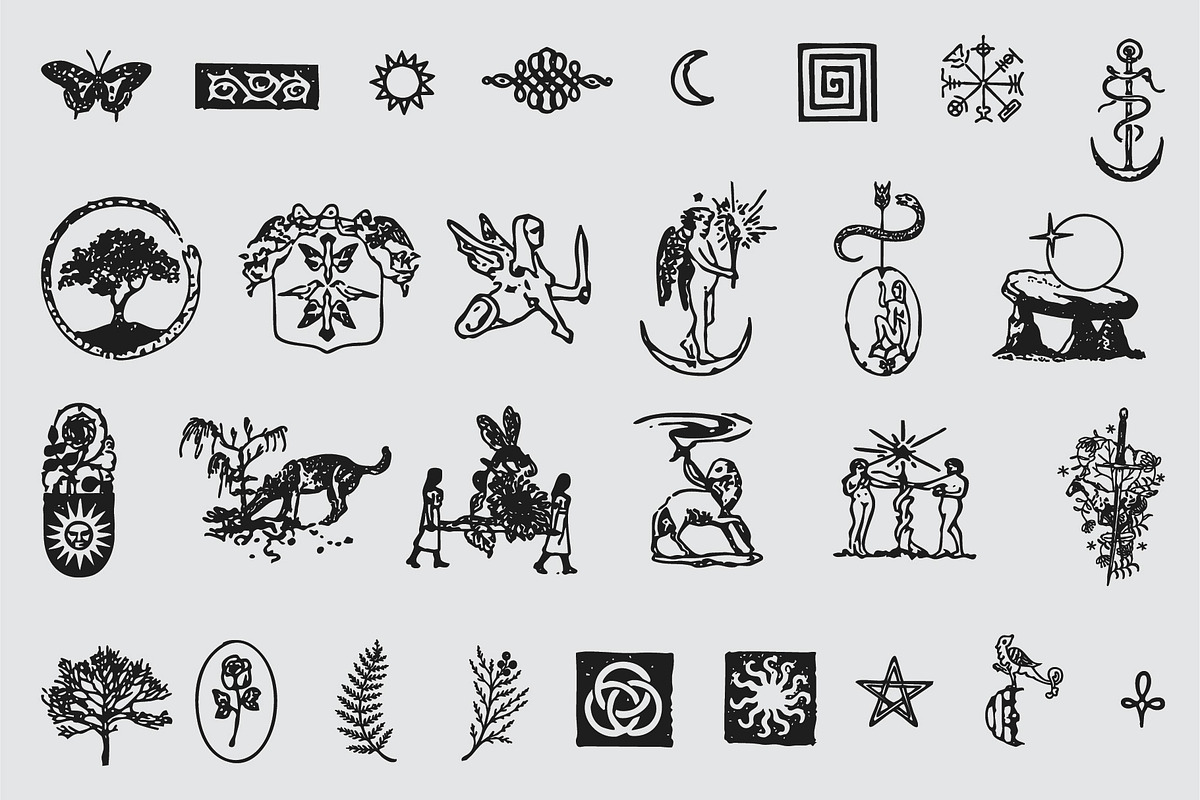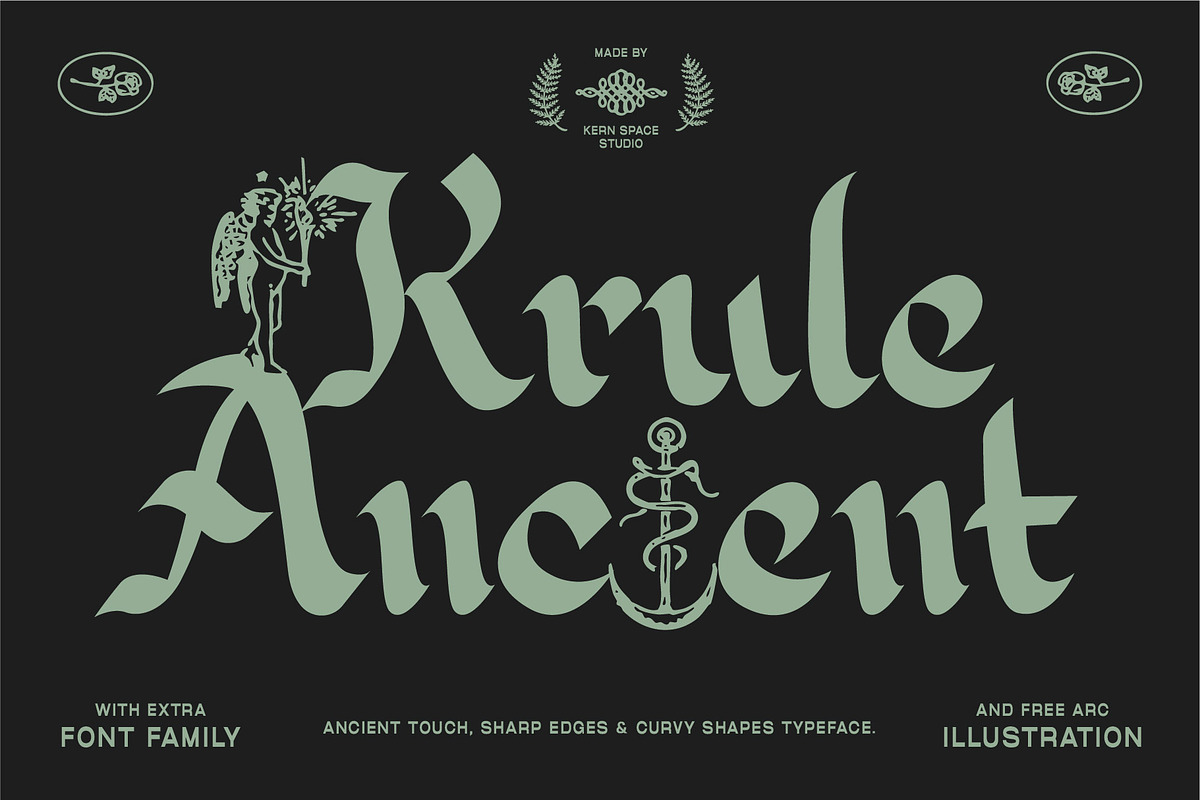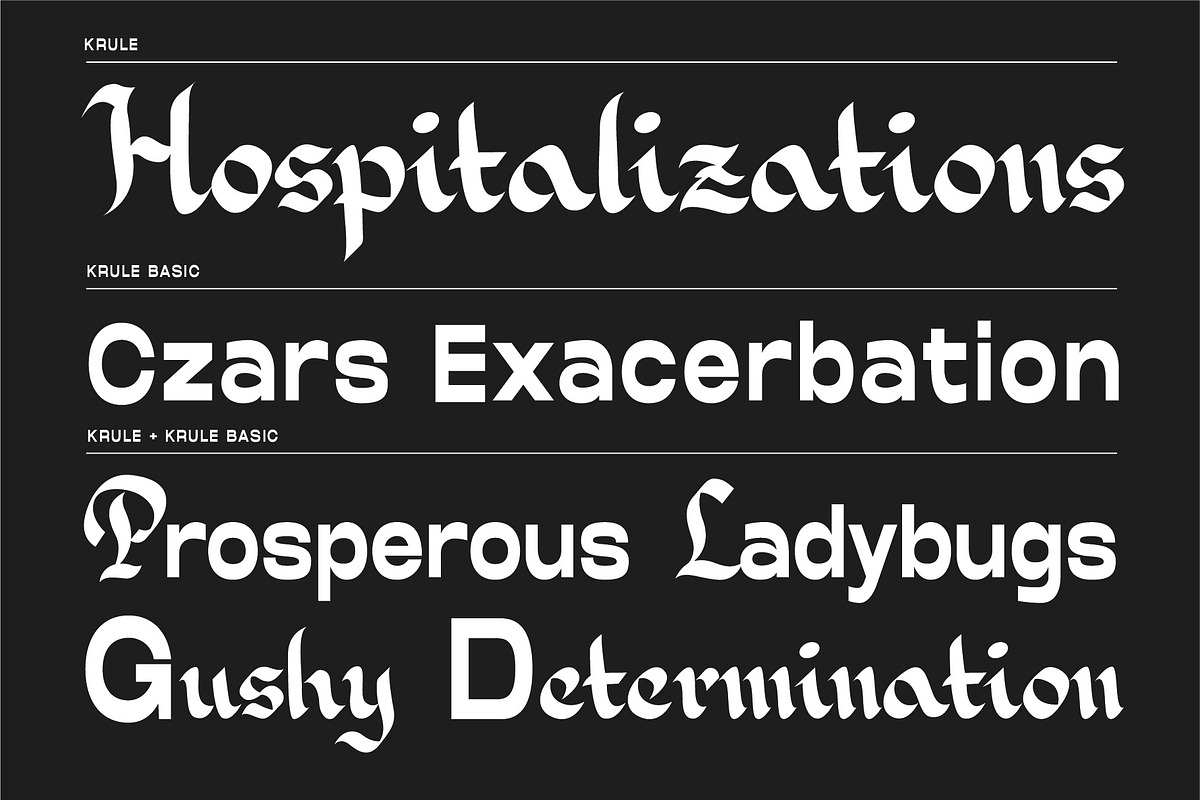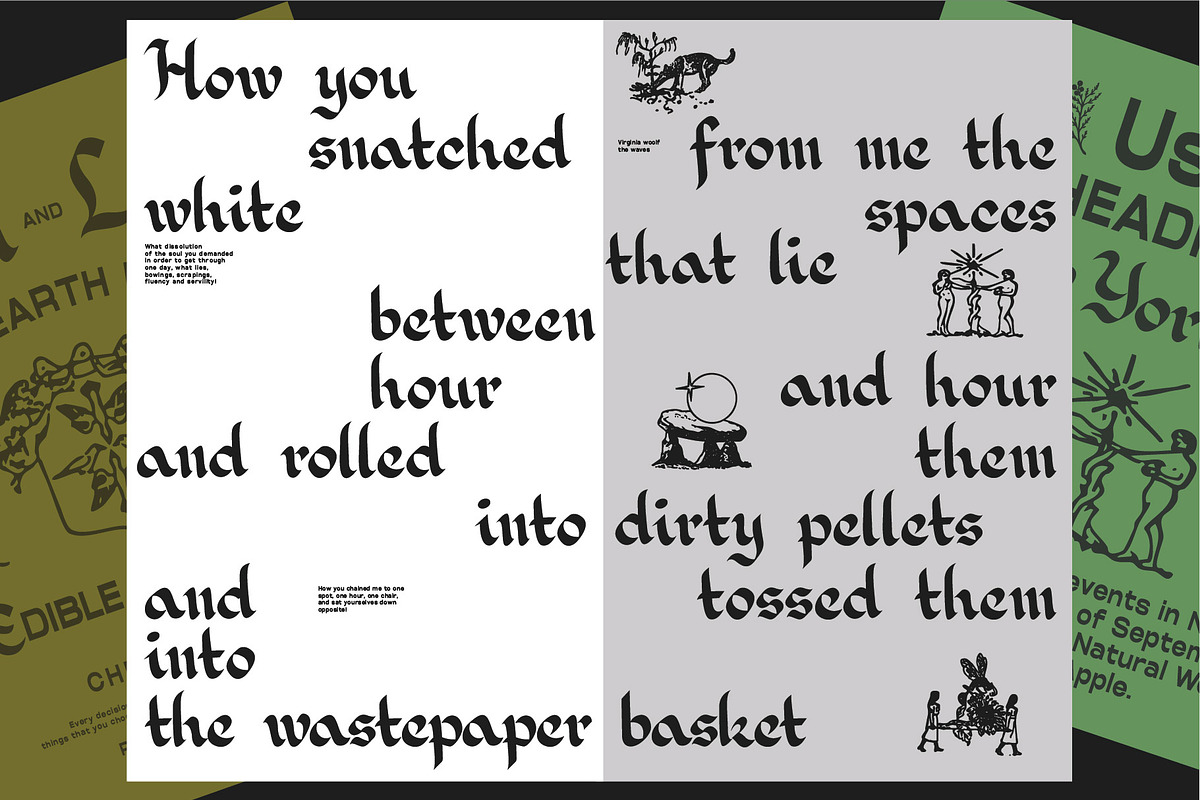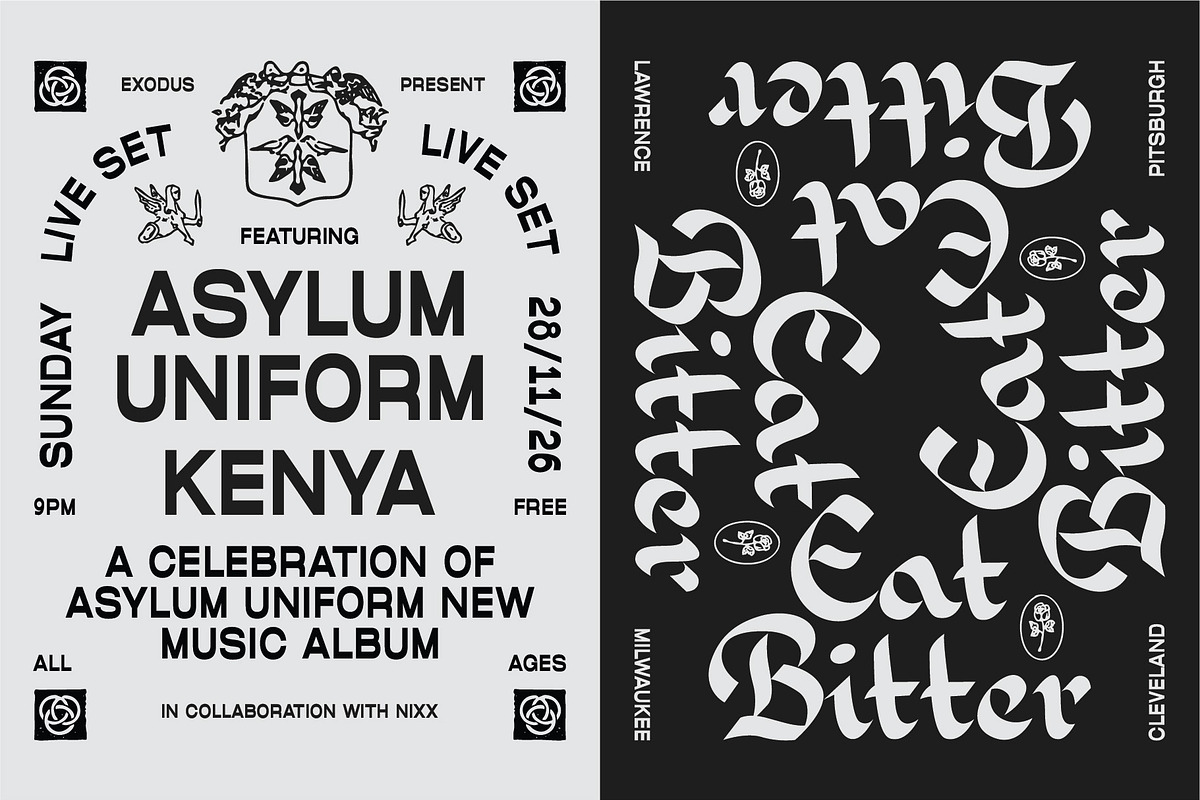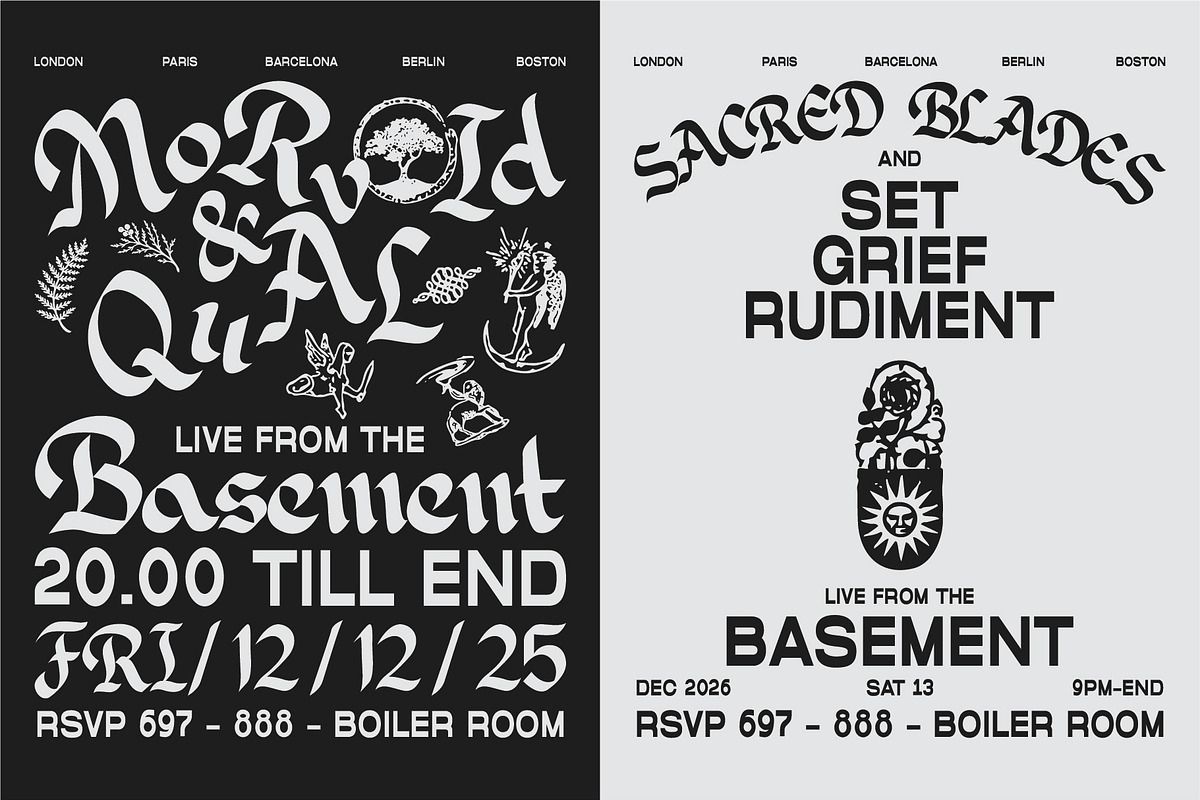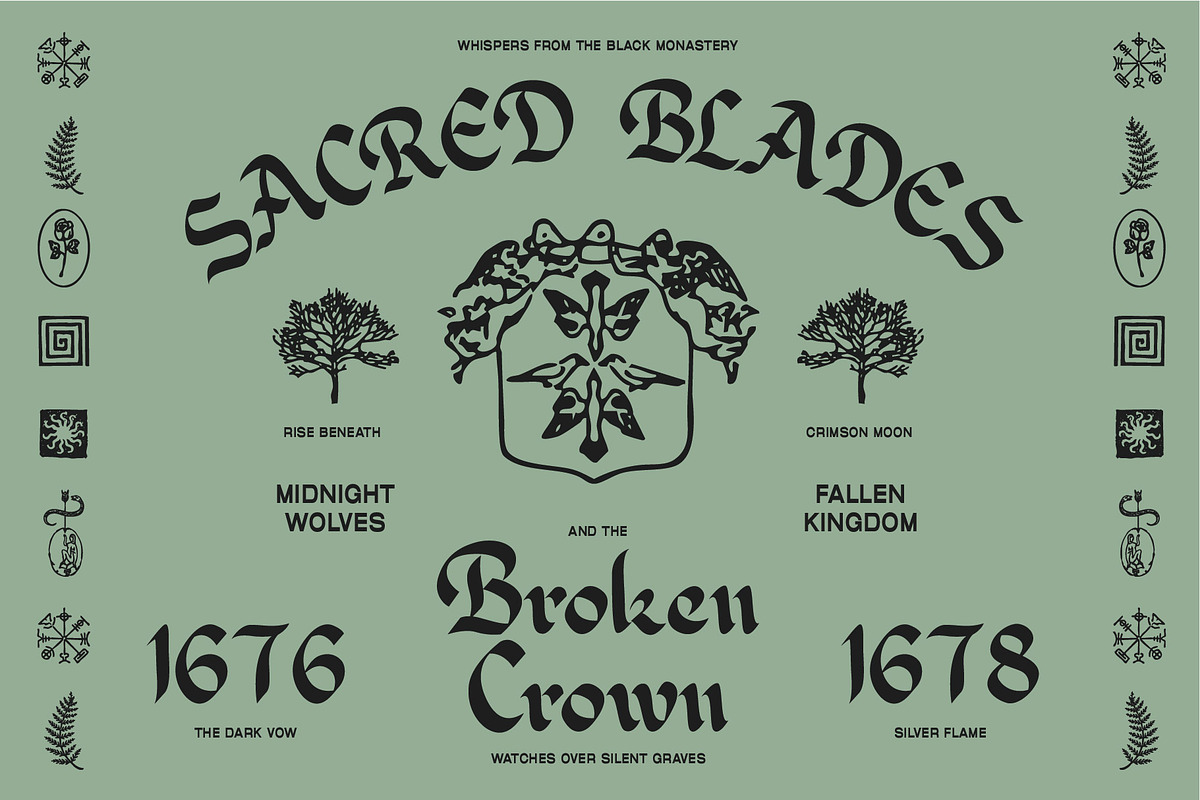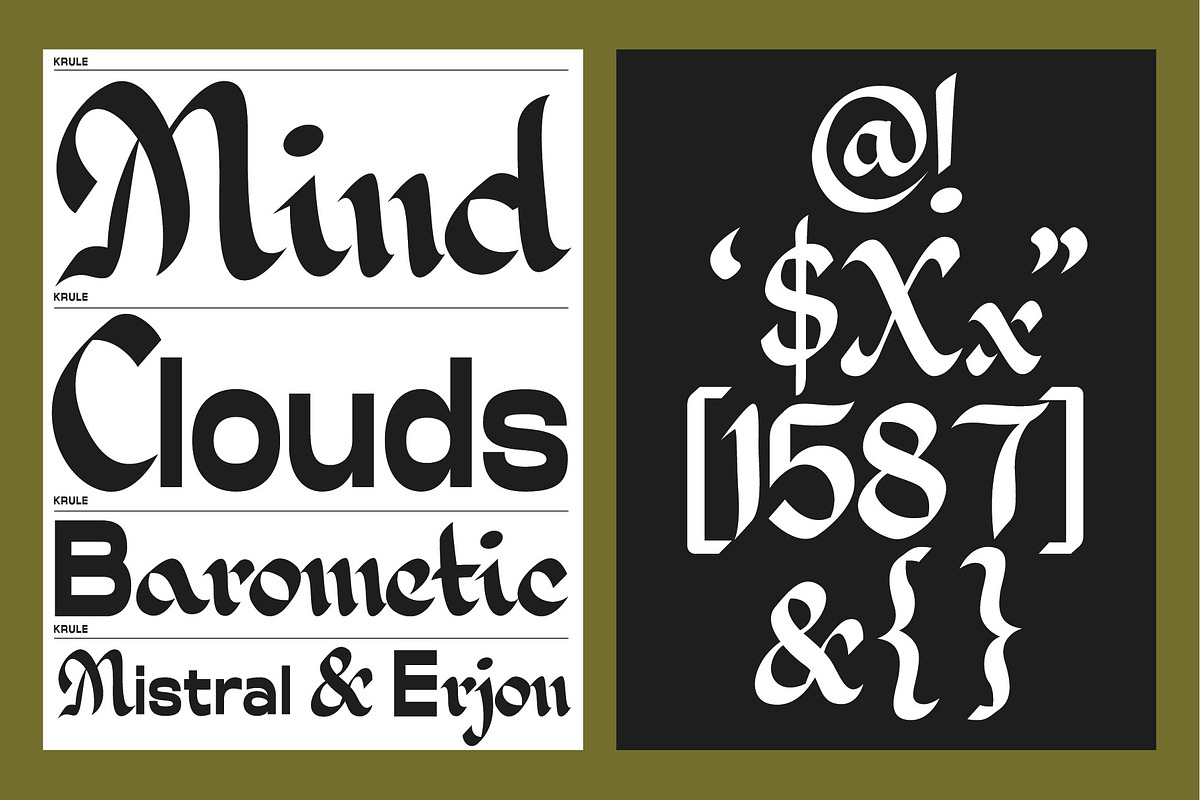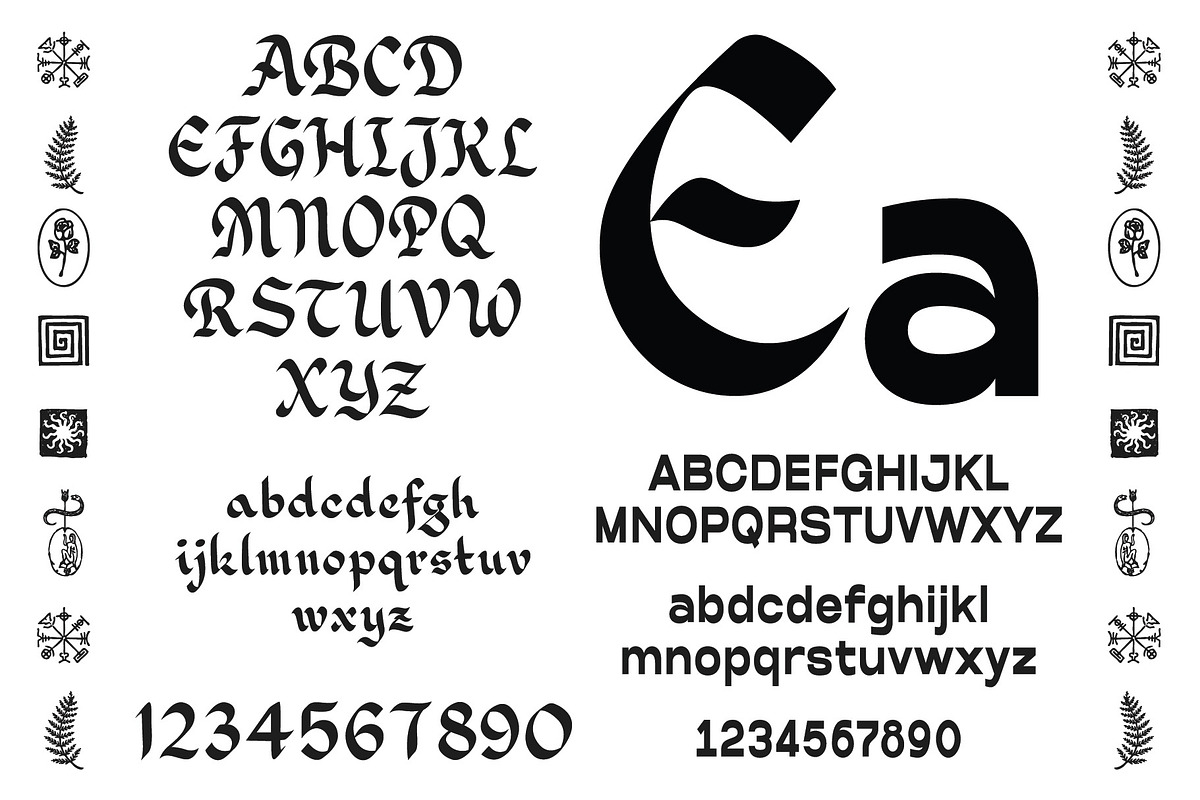
KSP Krule
KRULE – Medieval Display Typeface
KRULE is a bold medieval-inspired display typeface that blends ancient aesthetics with contemporary craftsmanship. Featuring sharp edges, dramatic curves, and distinctive blackletter influences, KRULE delivers a powerful visual presence perfect for projects that demand character and authority.
Inspired by old European manuscripts, heraldic emblems, and gothic architecture, this typeface balances historical charm with modern versatility. Every letter is carefully crafted to create striking headlines, memorable logos, album covers, apparel graphics, posters, branding projects, and packaging designs.
What makes KRULE unique is its combination of aggressive forms and elegant curves, creating a dramatic rhythm that feels both timeless and expressive. The included ornamental illustrations further enhance its medieval atmosphere, allowing designers to build immersive visual identities with ease.
Uppercase & Lowercase Characters
Stylistic Medieval Character Design
Bonus Vintage Ornament Illustrations
Perfect for Logos, Posters, Apparel, Packaging & Branding